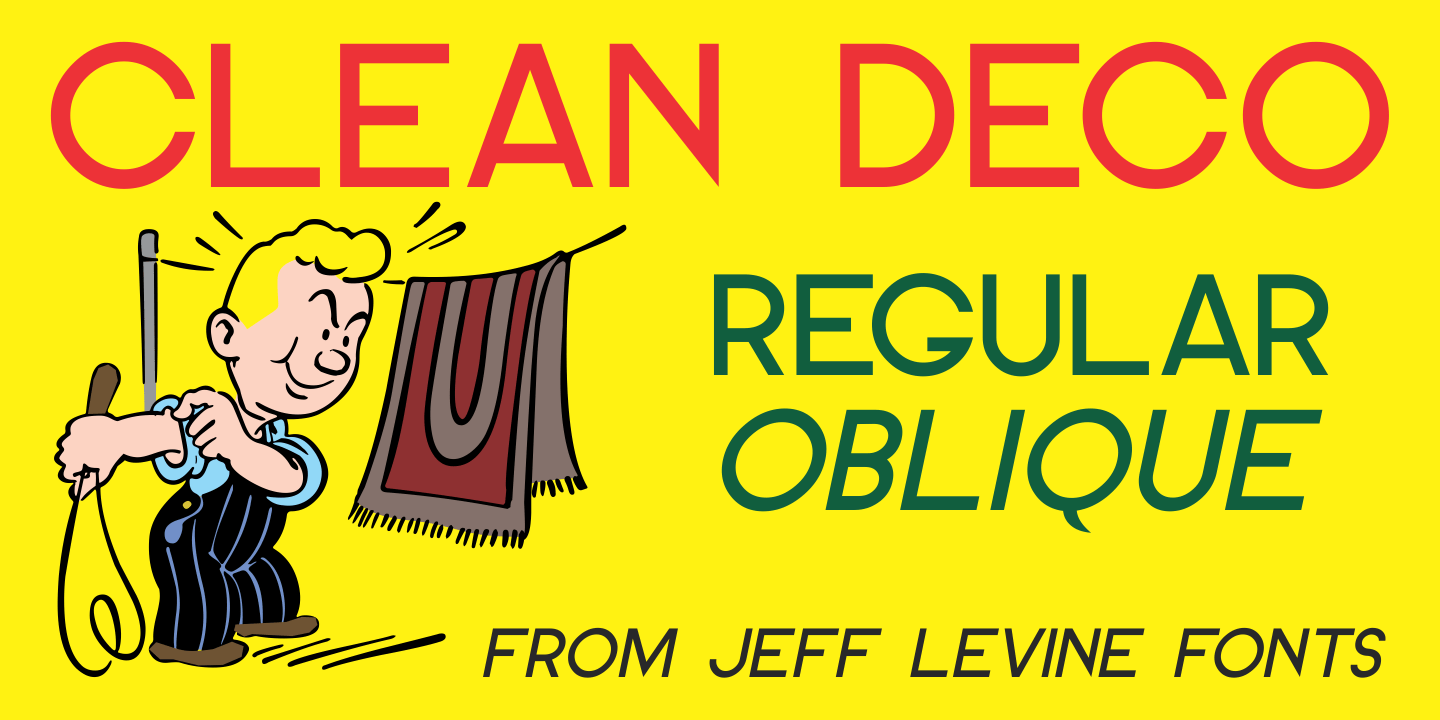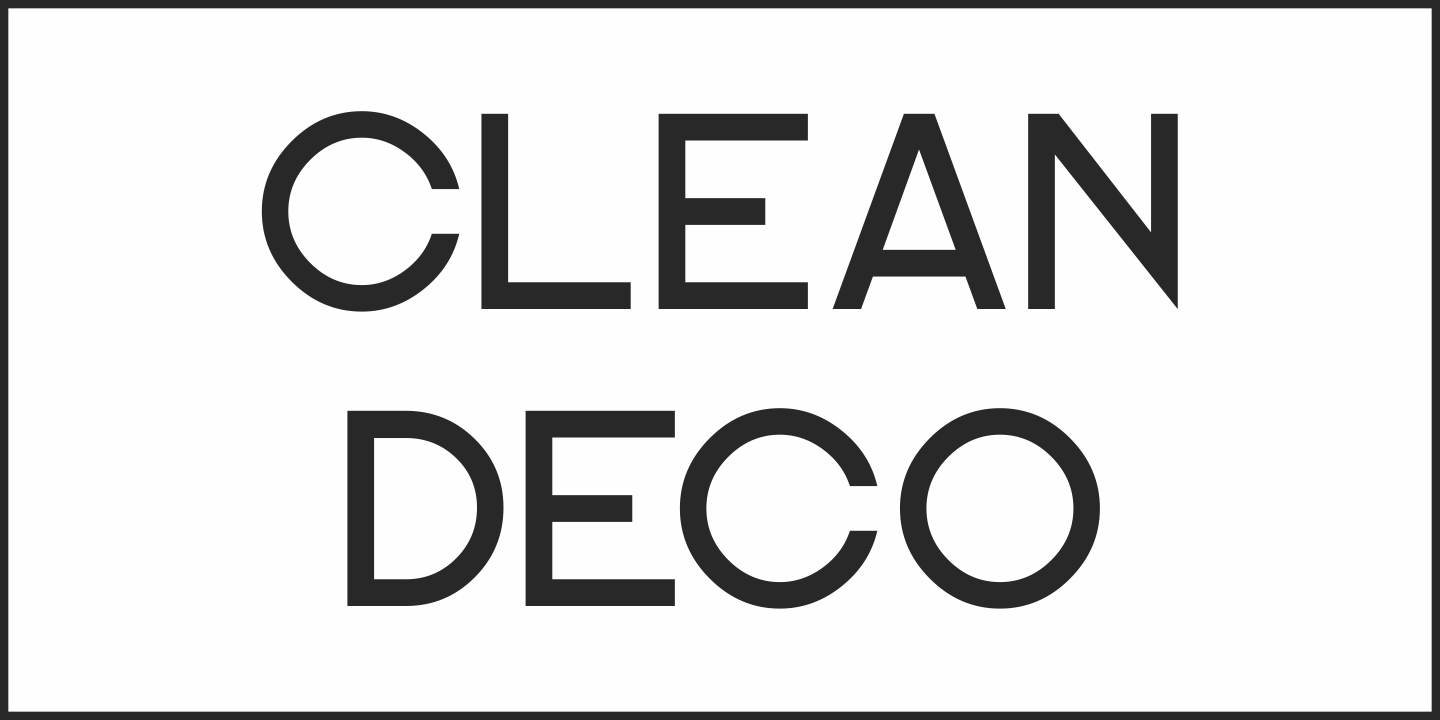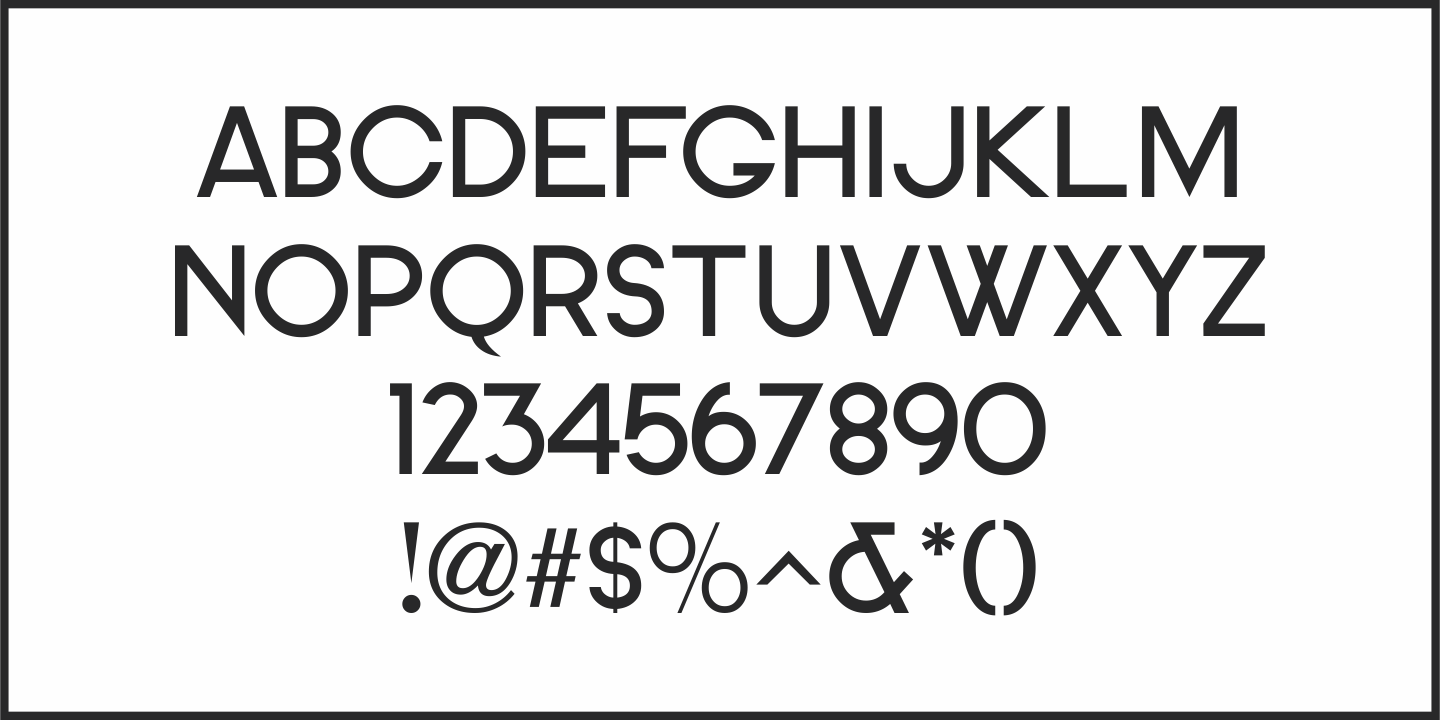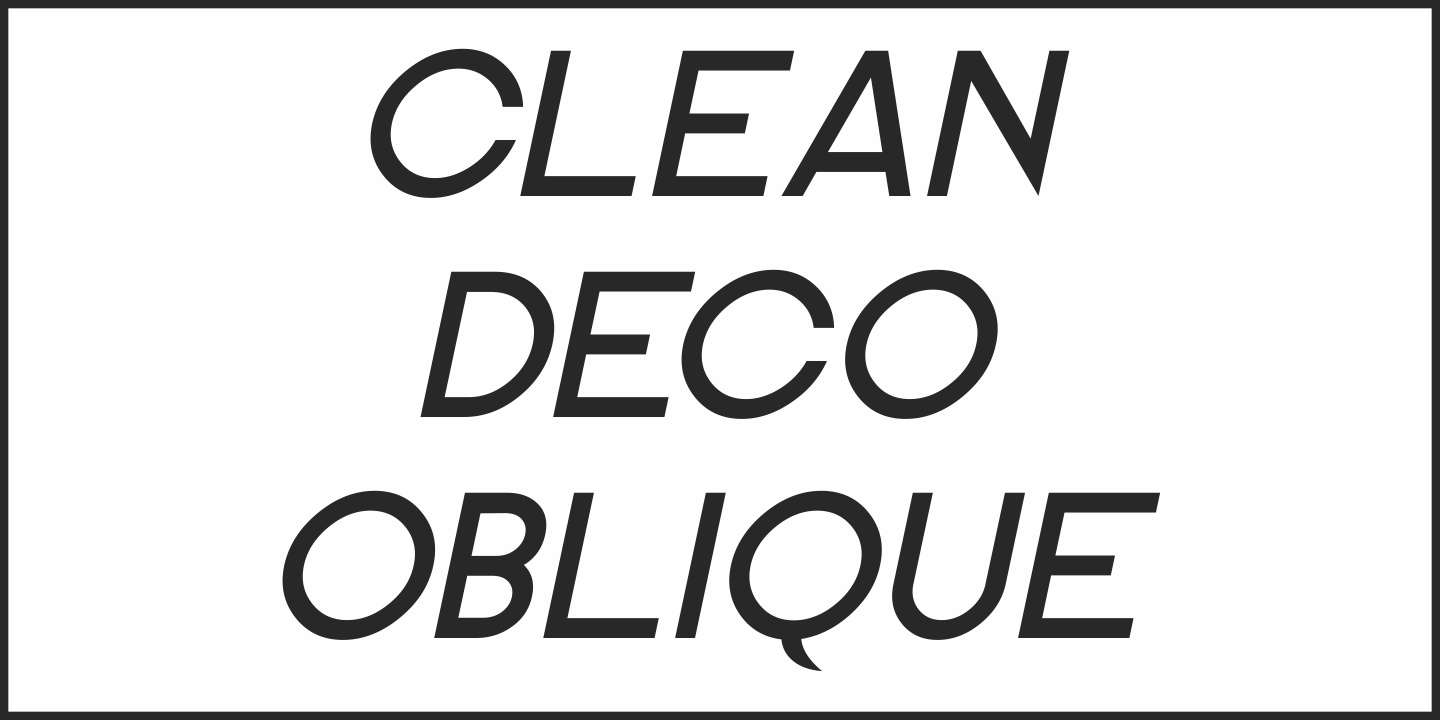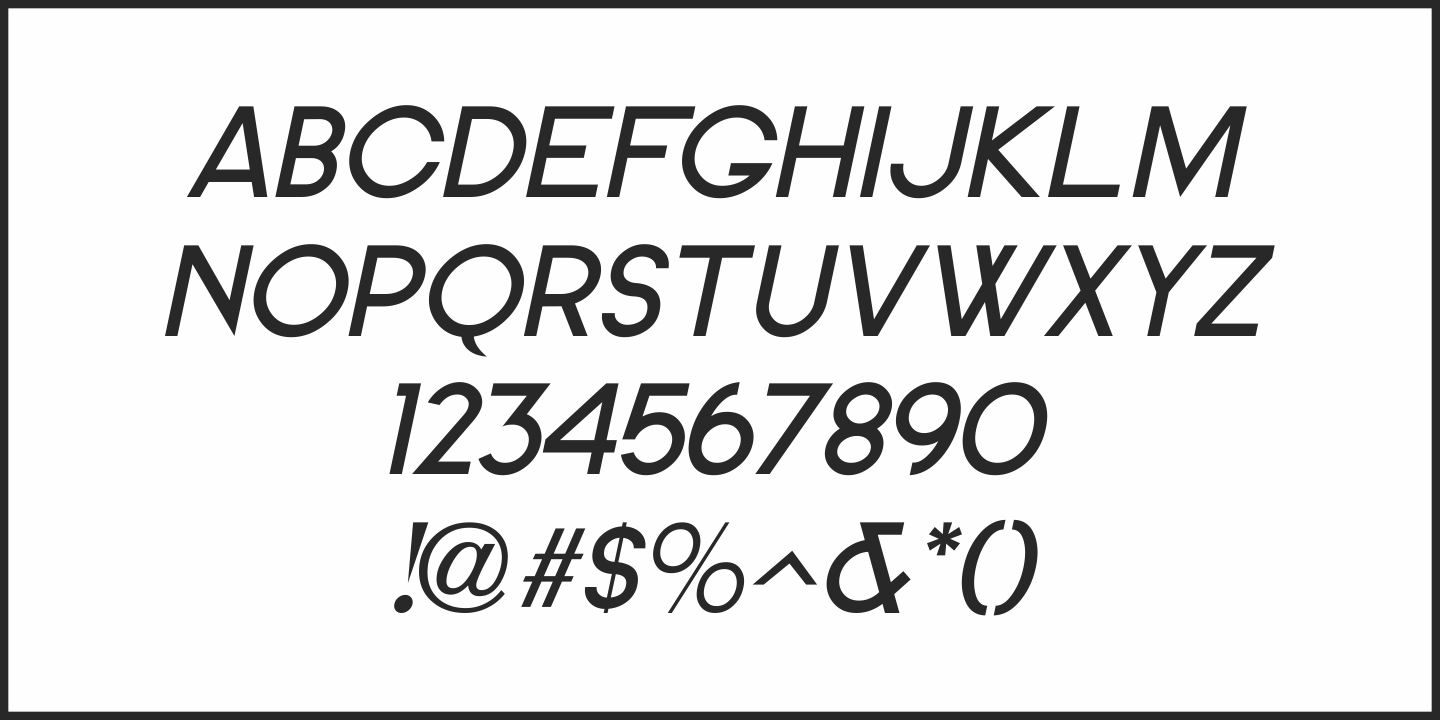
Clean Deco
Whatever the original source – whether a vintage bit of typography or an original idea – the beginnings of this font lay unfinished for quite a while as it was perceived to duplicate another previous release.
However, after recently checking a sample of the design against other Jeff Levine Fonts, it’s reasonably certain this type face may have similar characteristics, but can stand on its own merit.
That said, Clean Deco JNL is available in both regular and oblique versions.